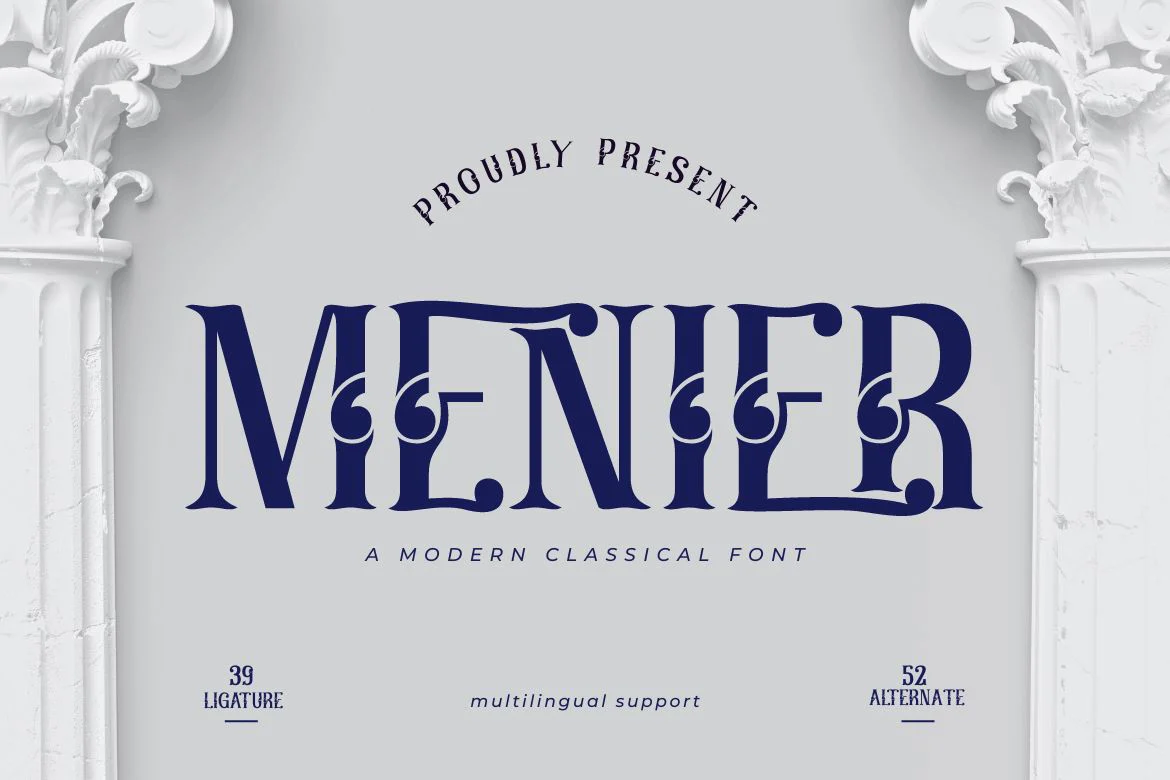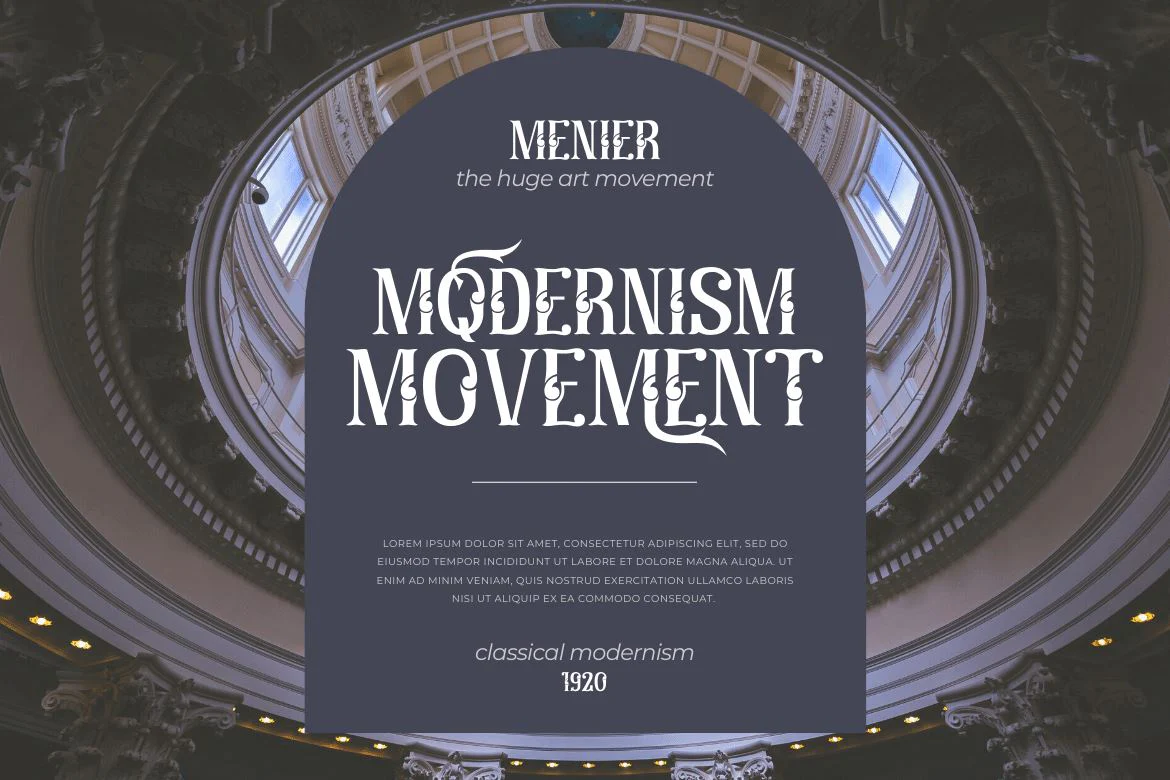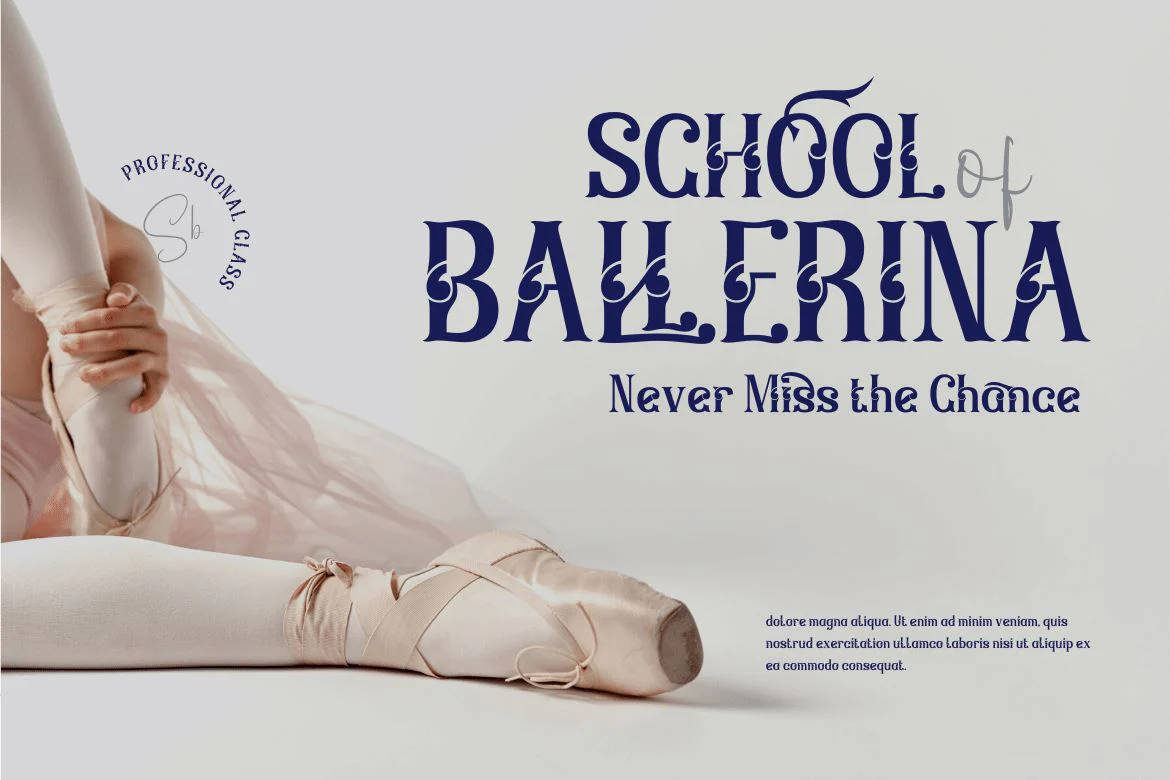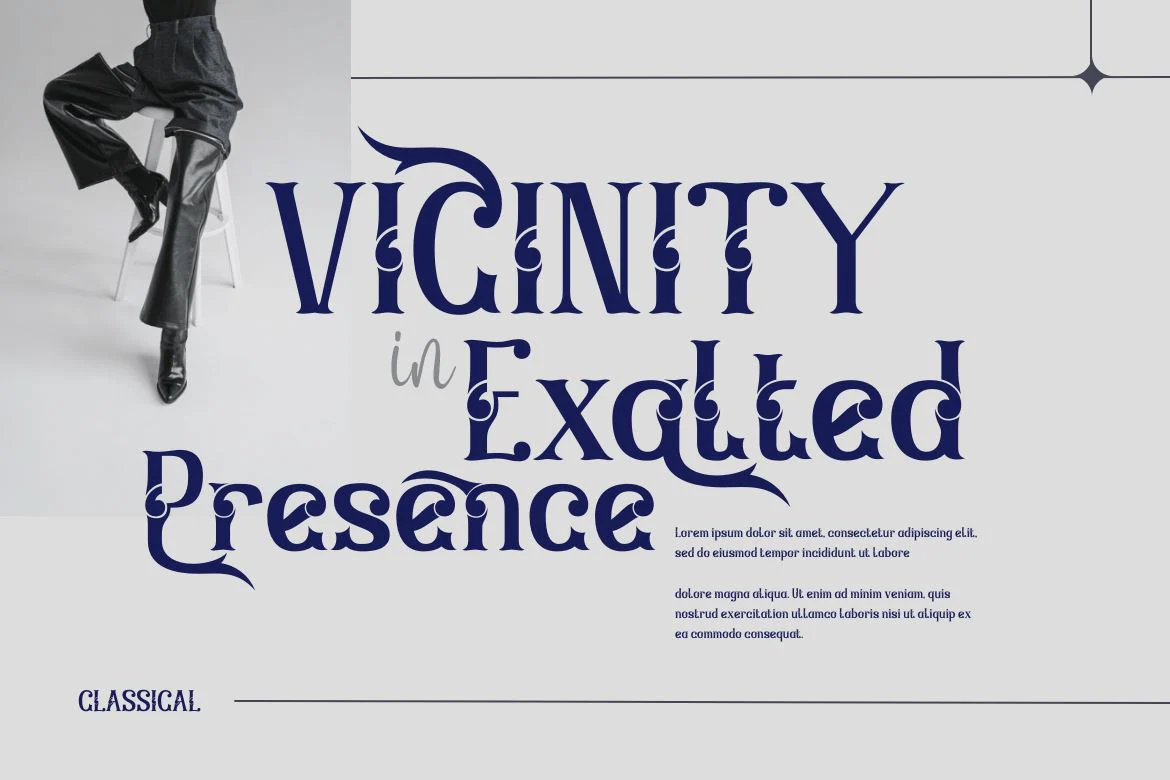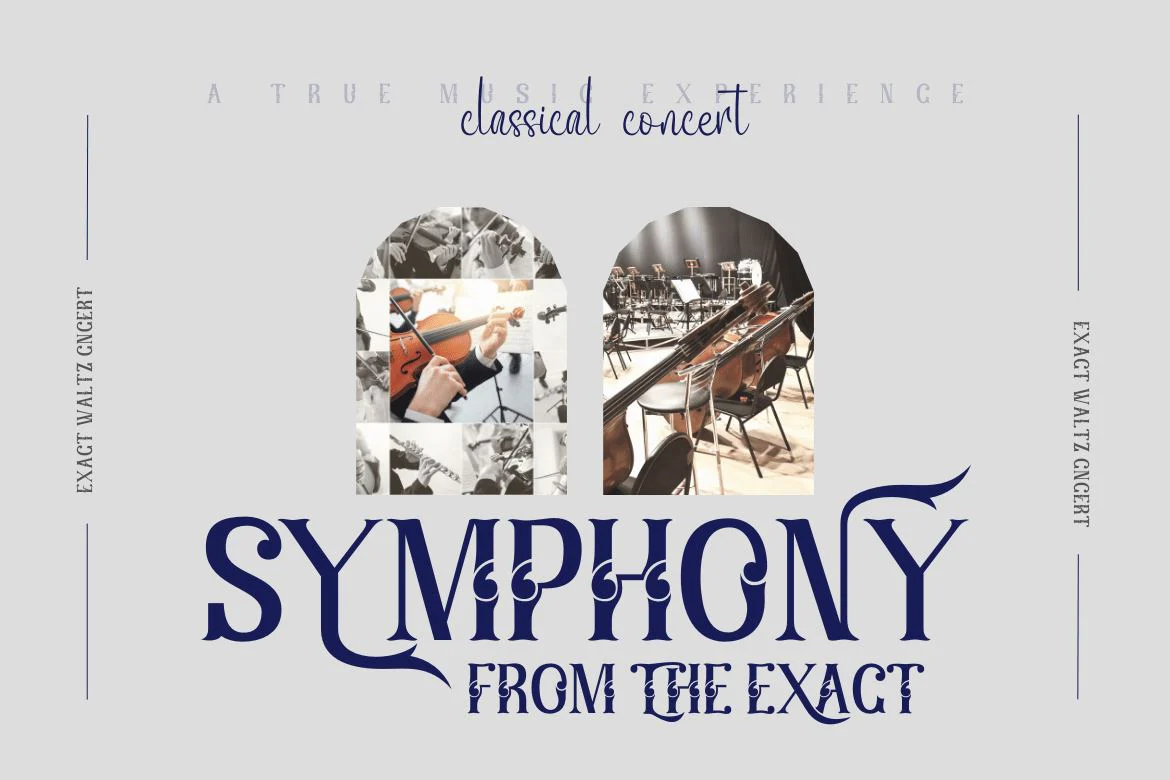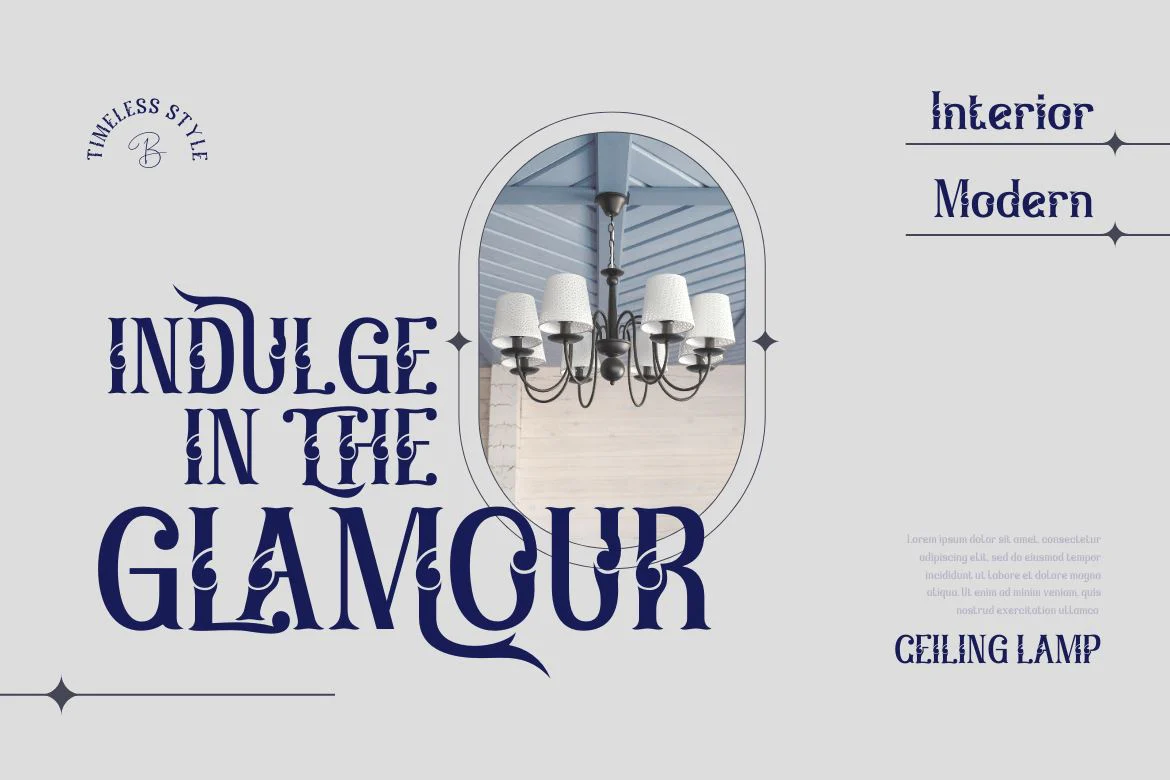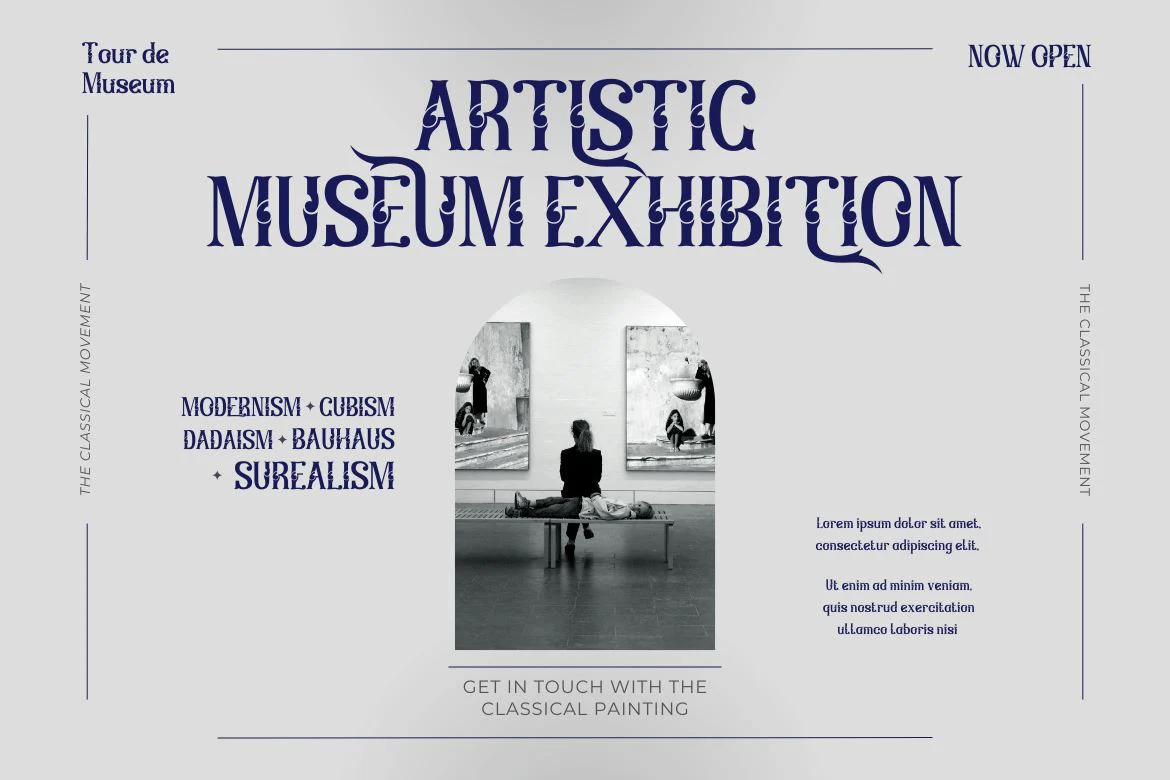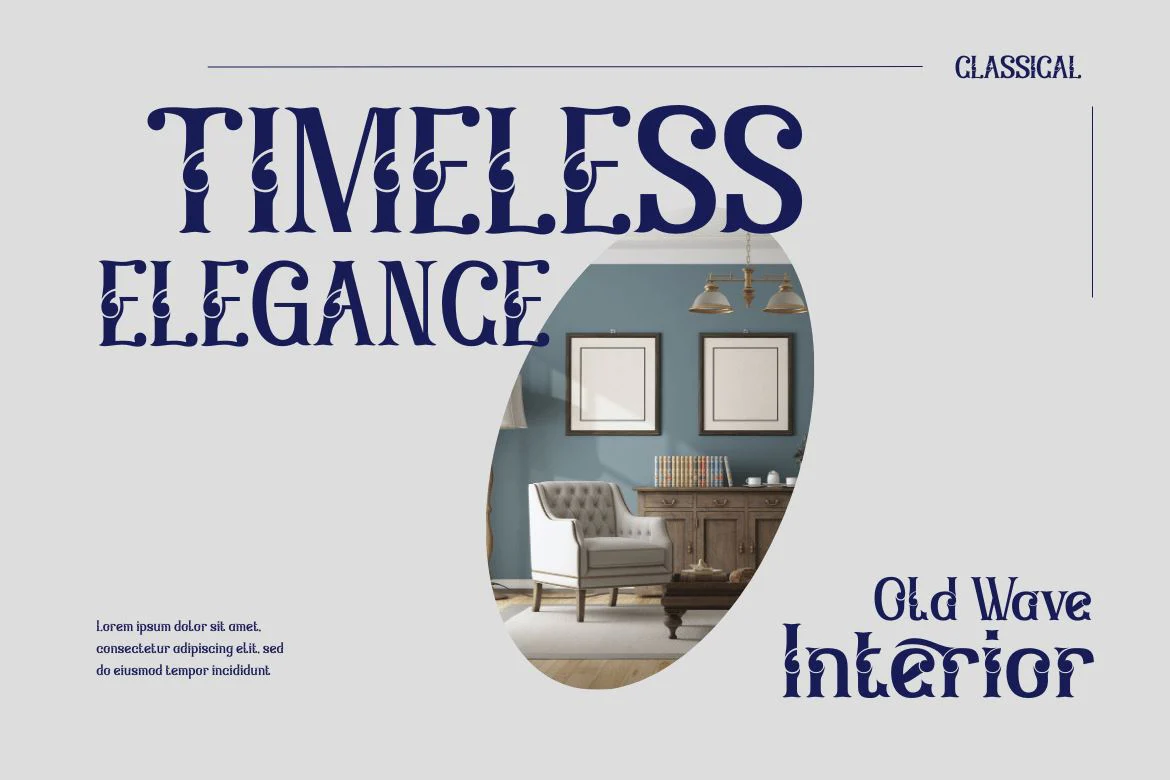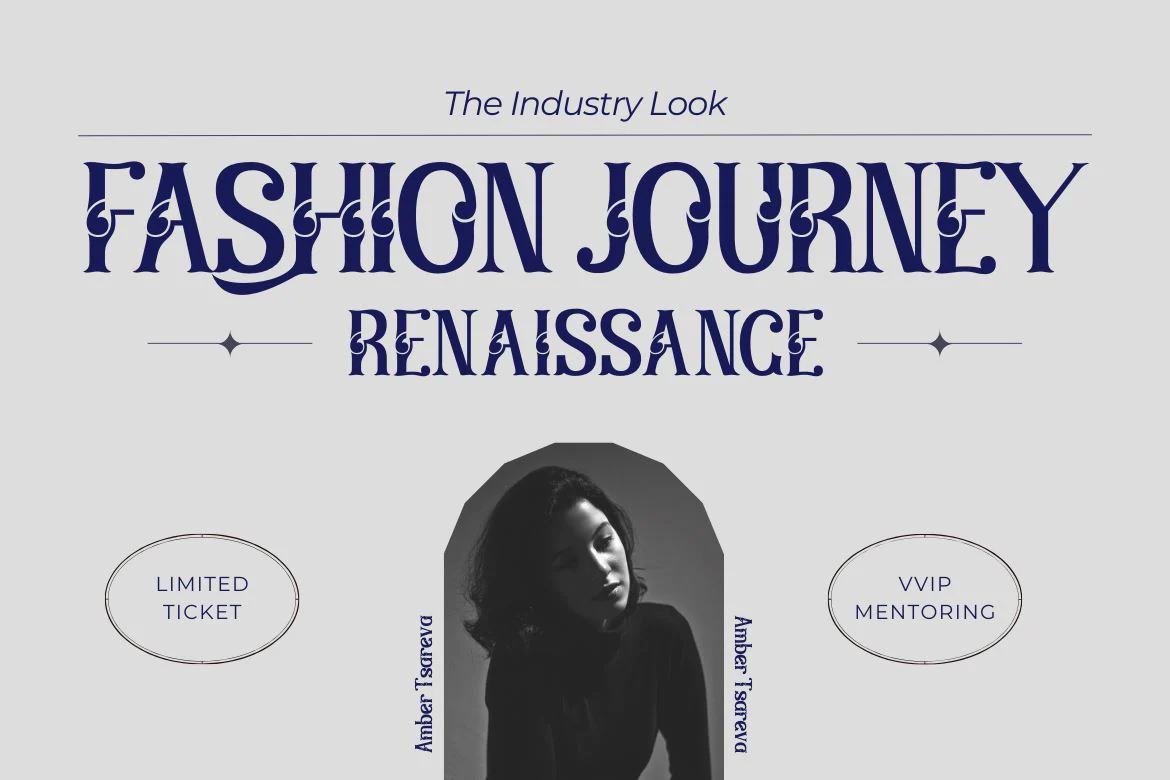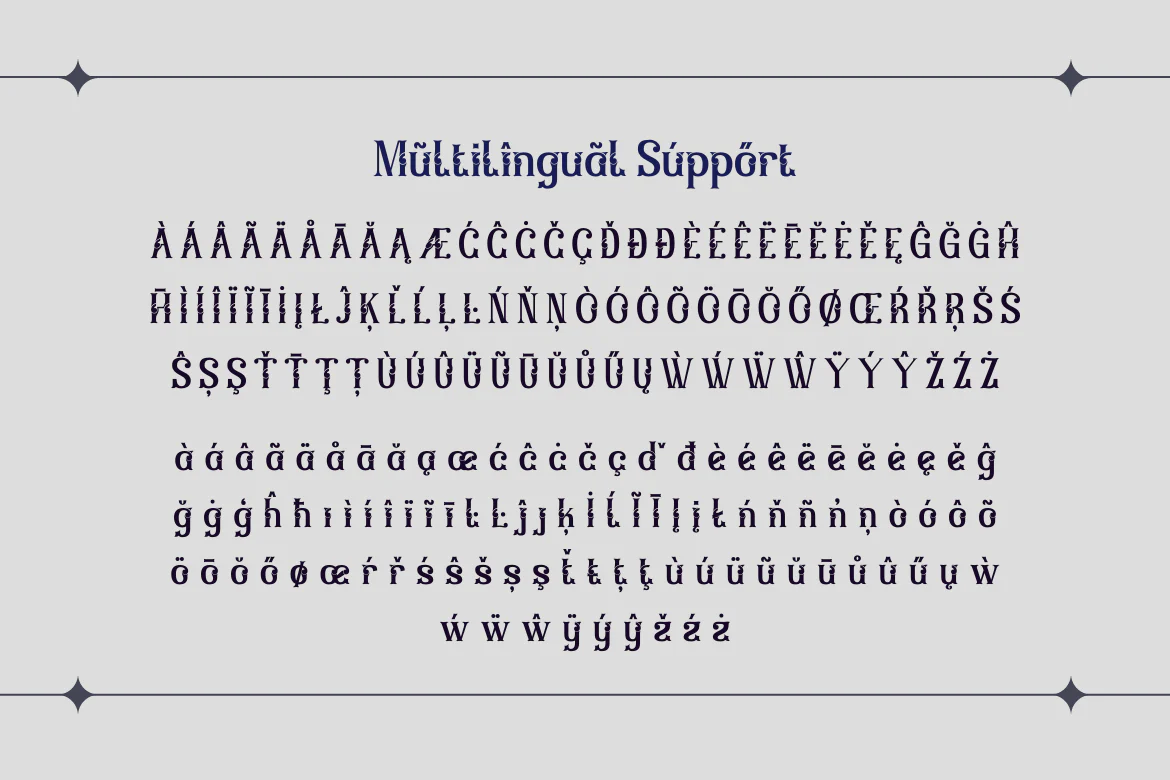
Menier | Retro Condensed Font
Introducing Menier, the perfect retro condensed font for any project! Its classic style and sleek design make it a versatile choice for both print and digital designs. With 52 alternate characters and 39 ligatures, Menier allows you to create unique and eye-catching designs with ease.
Menier’s retro condensed style adds a touch of nostalgia to any project, making it ideal for vintage and retro-themed designs. And with multilingual support, it’s perfect for projects that require a global reach. Whether you’re designing logos, posters, or packaging, Menier will help you achieve a classic yet modern look that will stand out from the crowd.
In summary, Menier is a versatile retro condensed font with classic design elements, featuring alternate characters and ligatures to help you create unique designs. With multilingual support, it’s perfect for a variety of projects, from print to digital. Try Menier today and take your designs to the next level!